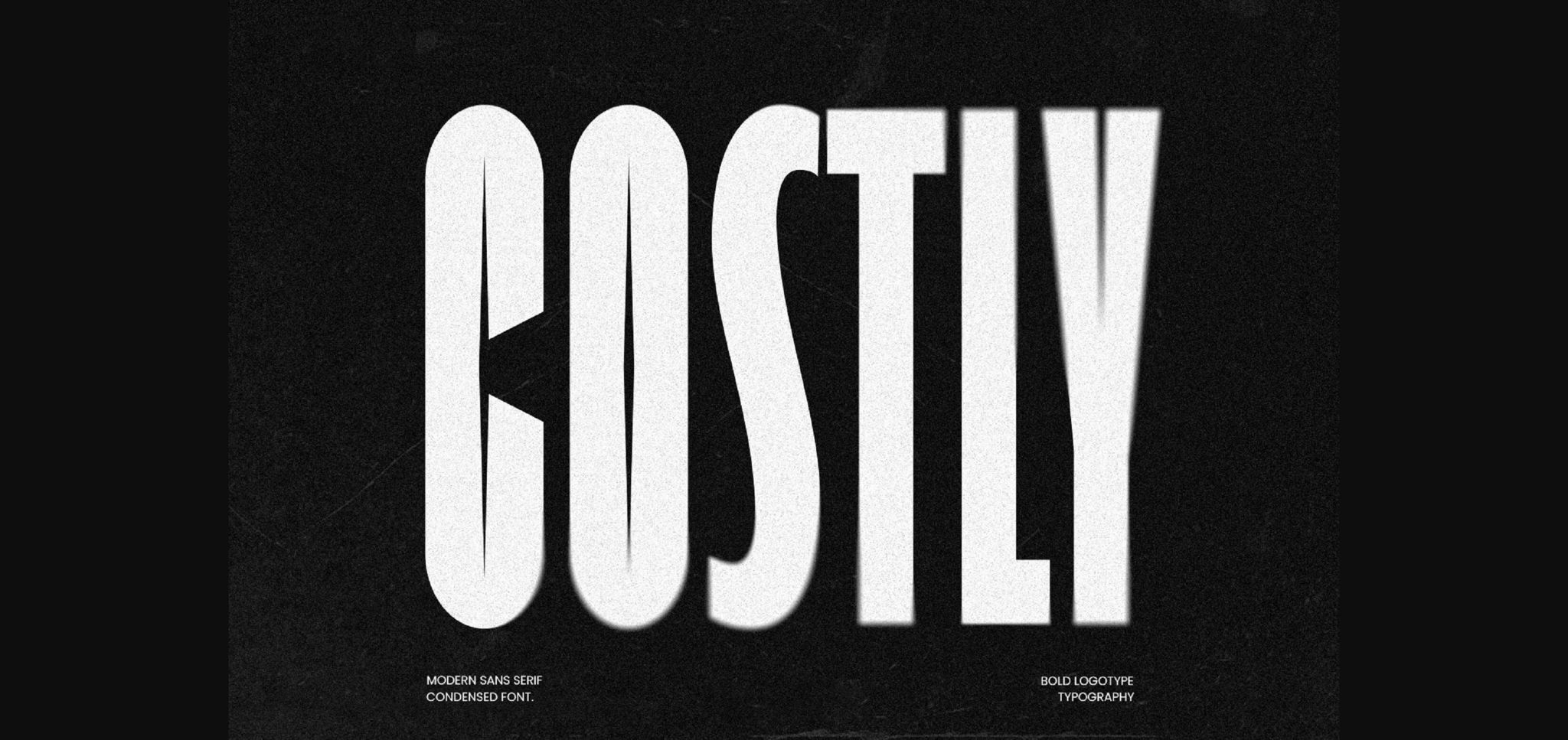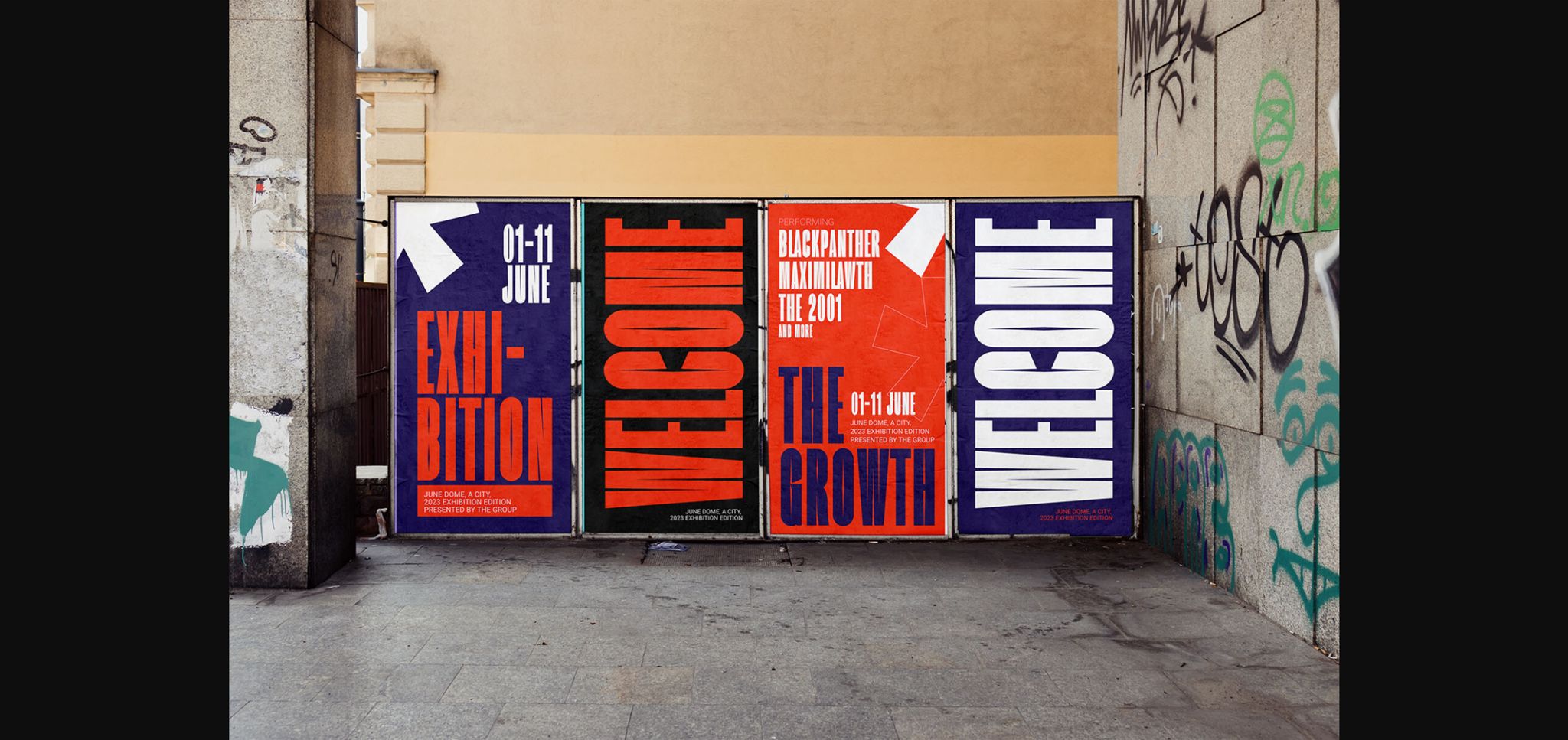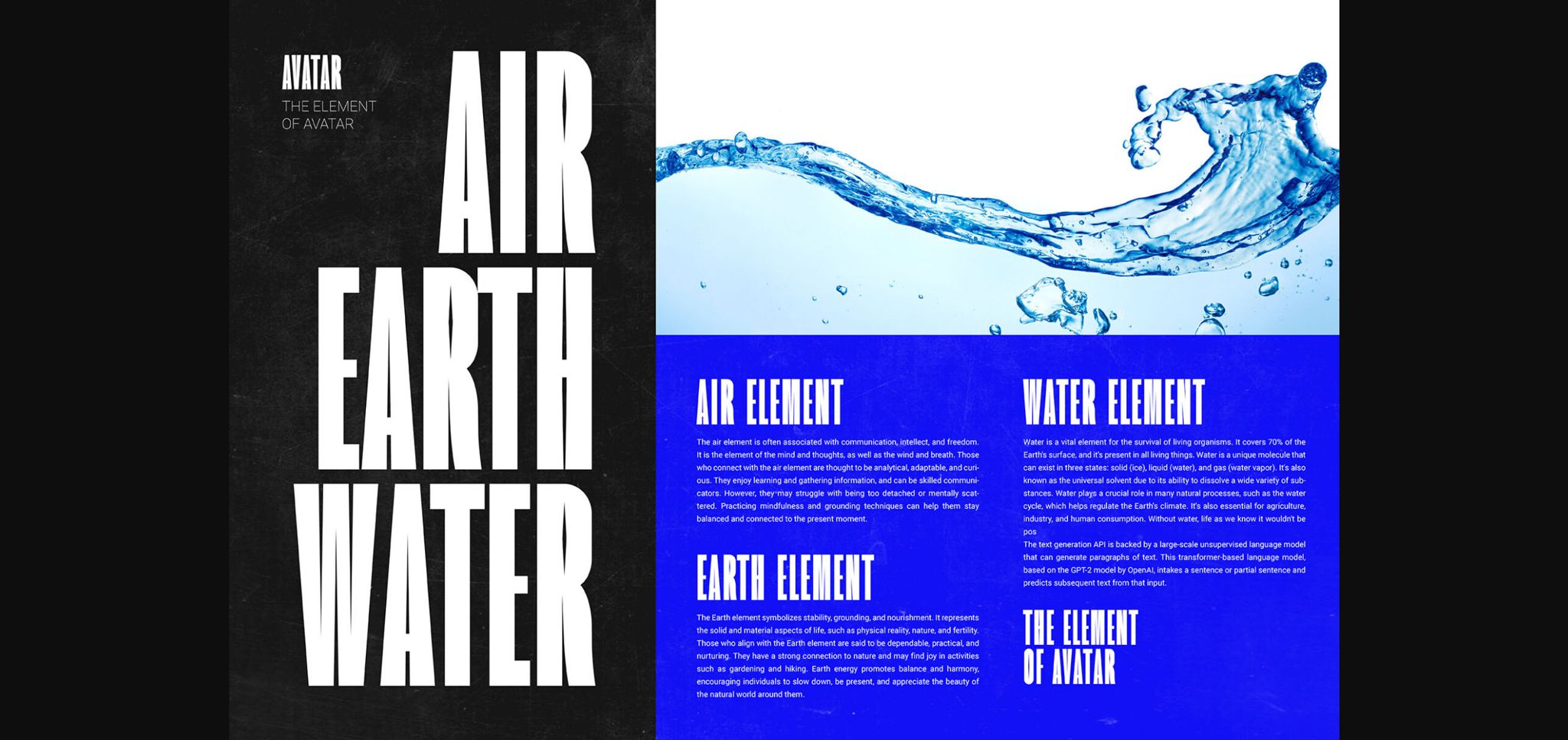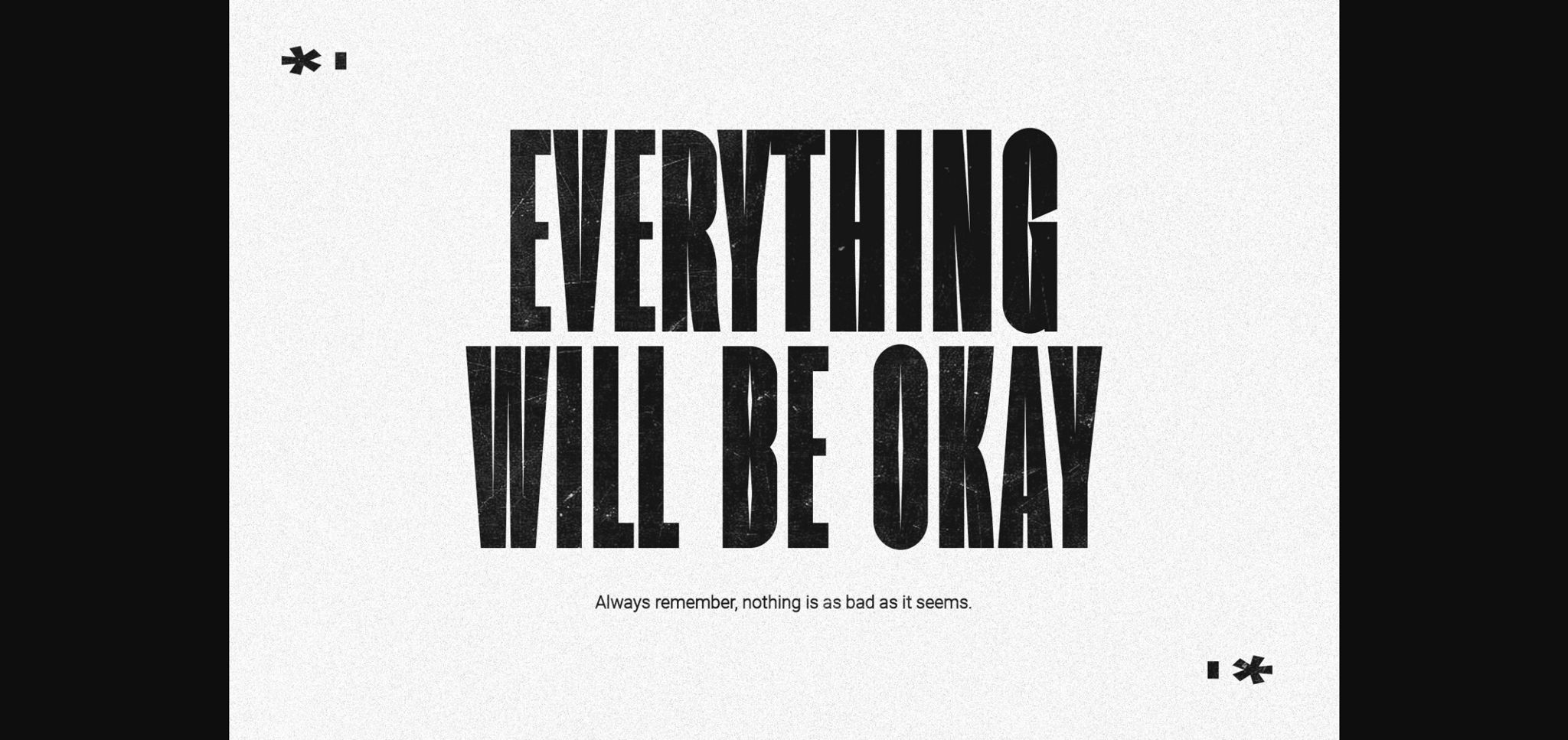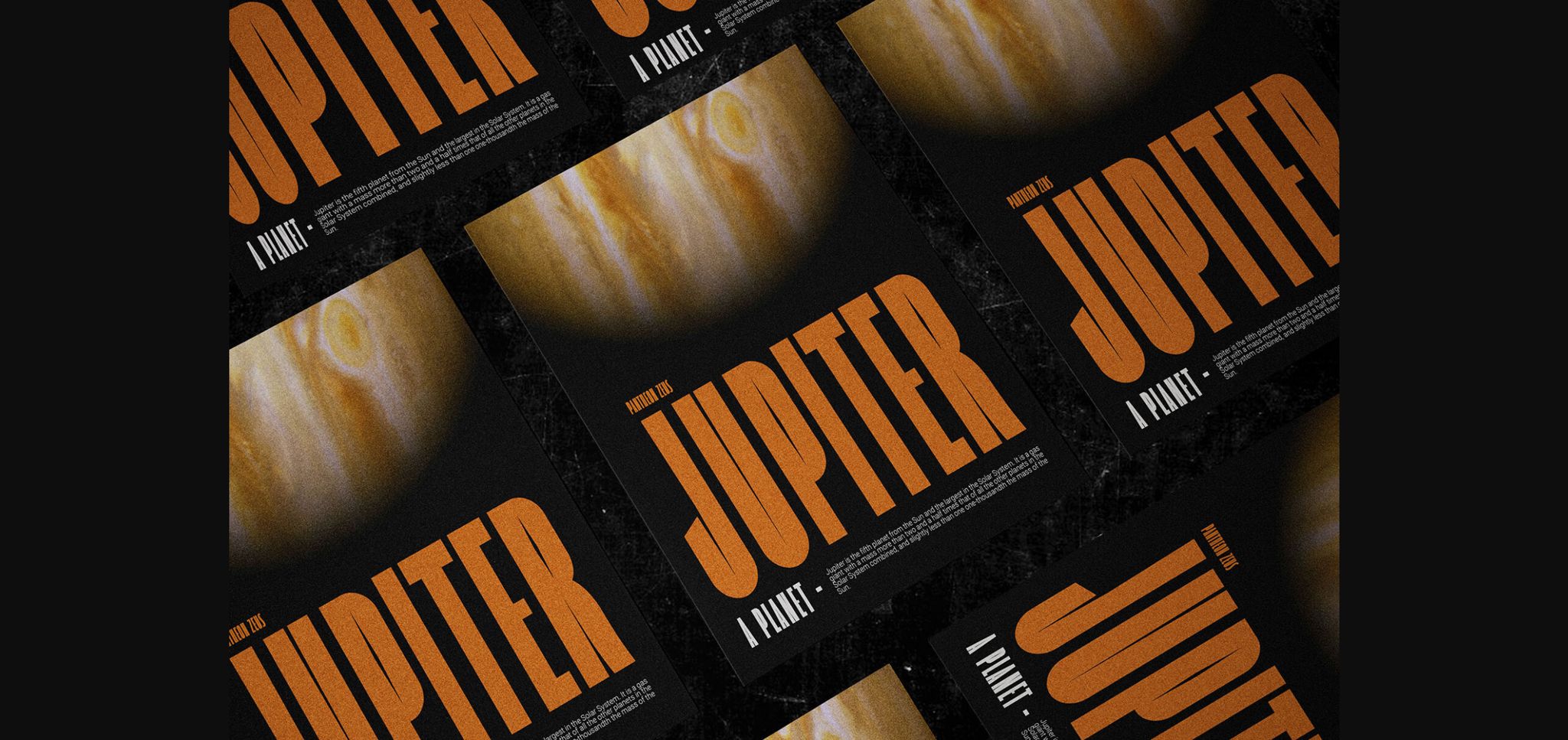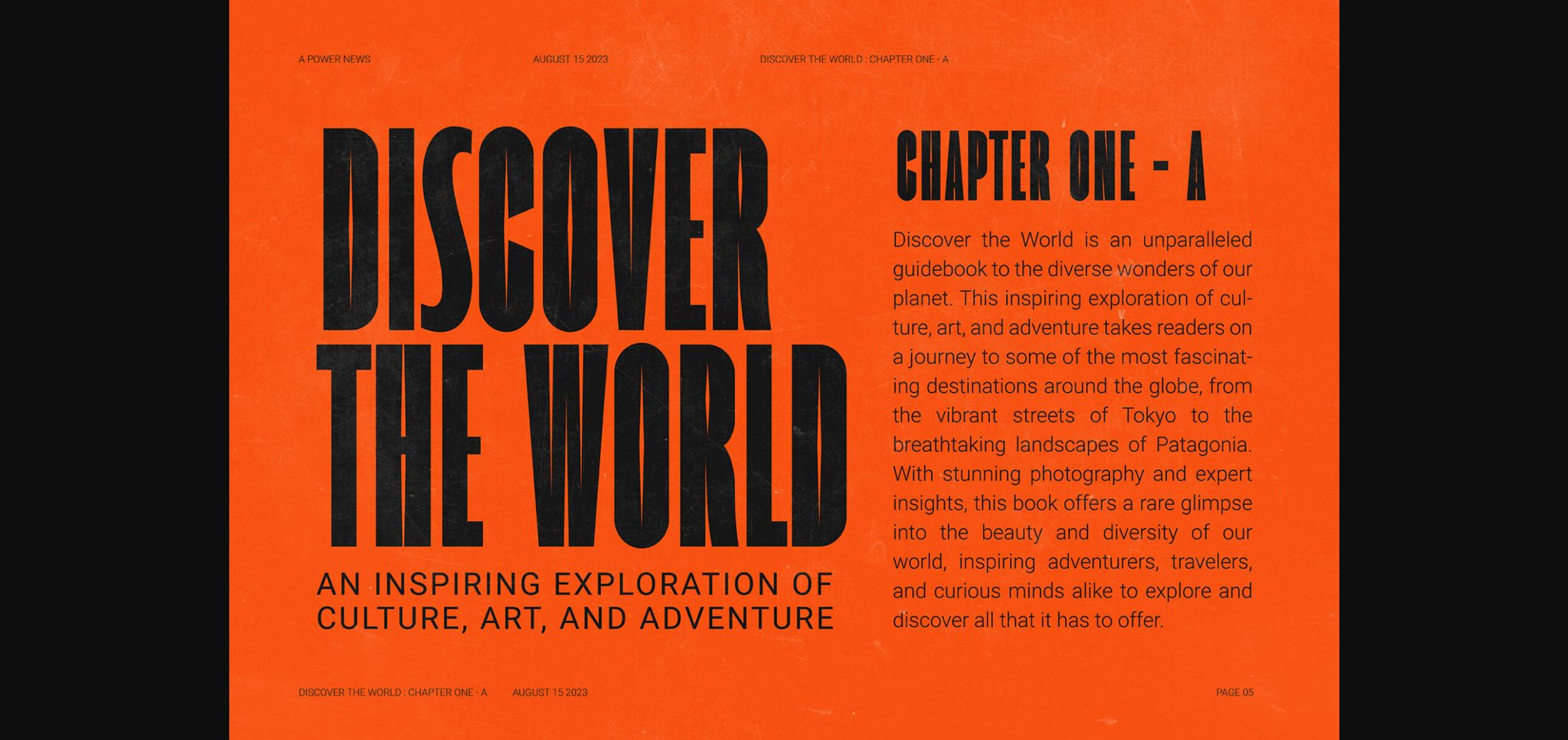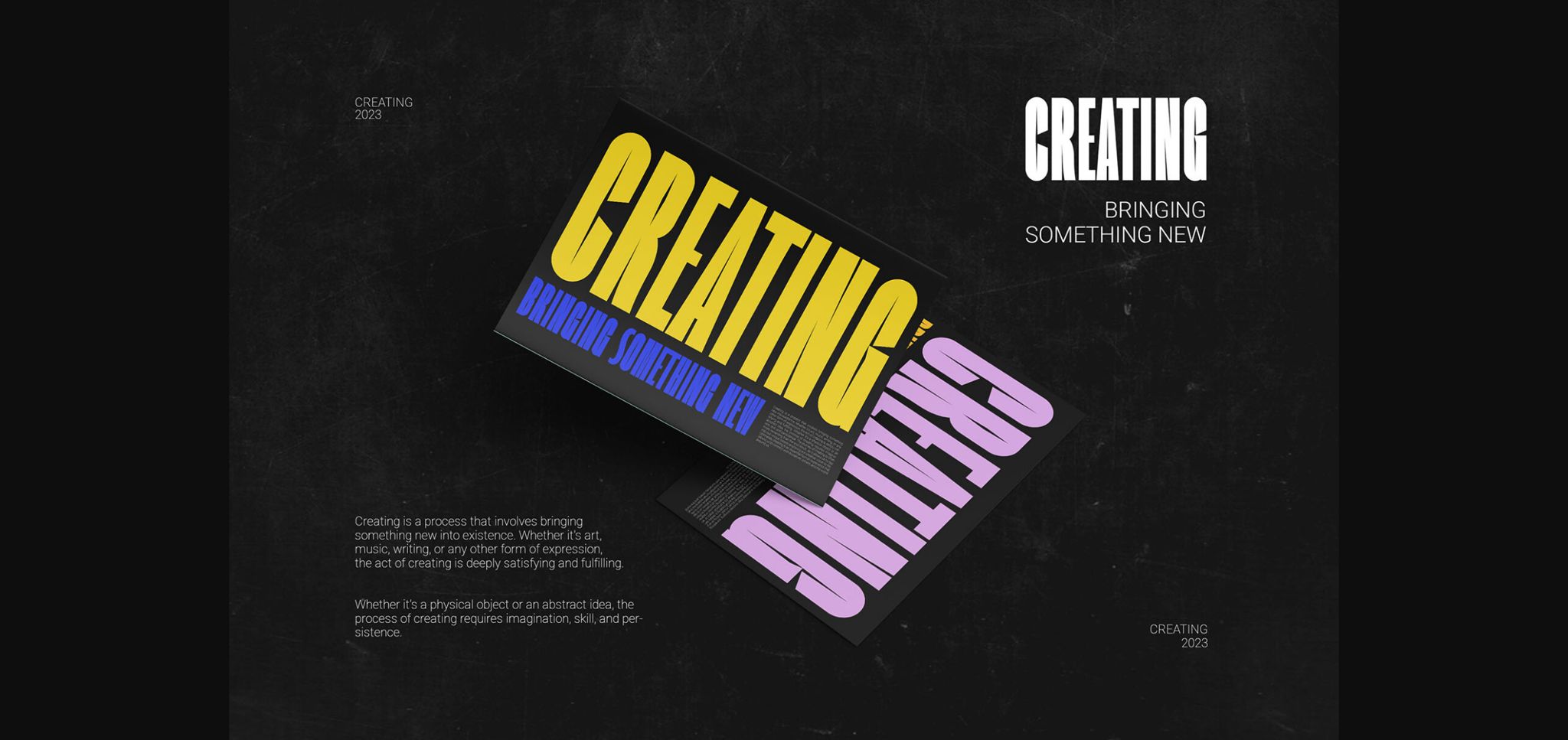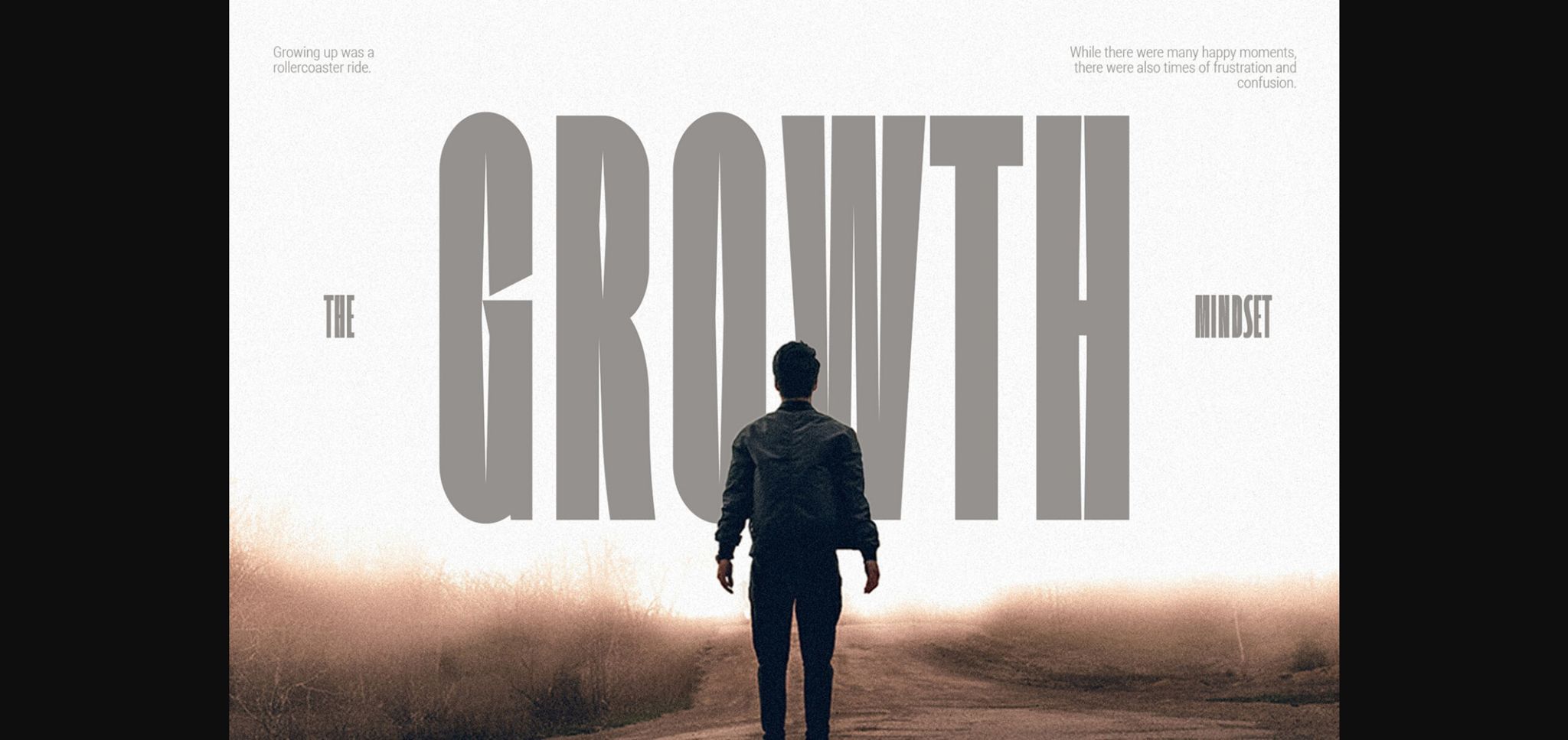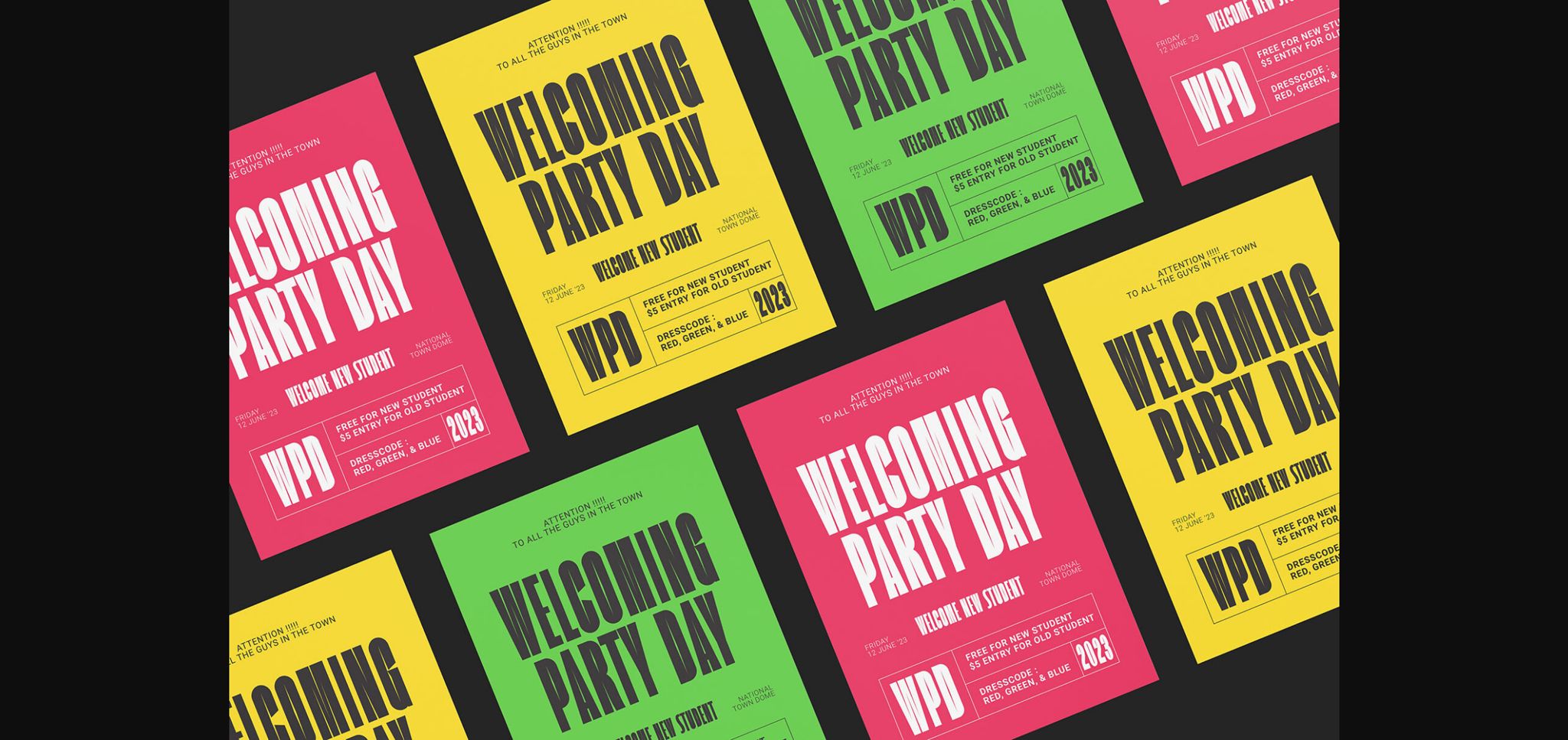
Costly Font
About Costly Font
Costly is a contemporary and eccentric sans-serif font that adds a playful twist to your designs. With its unique letterforms and charming irregularities, Genky is perfect for giving your projects a touch of whimsy and character. Its clean lines and bold strokes make it highly legible, while its quirky details set it apart from traditional fonts. Whether you’re designing for digital or print, Genky adds a delightful and modern flair to your text while maintaining readability and style.